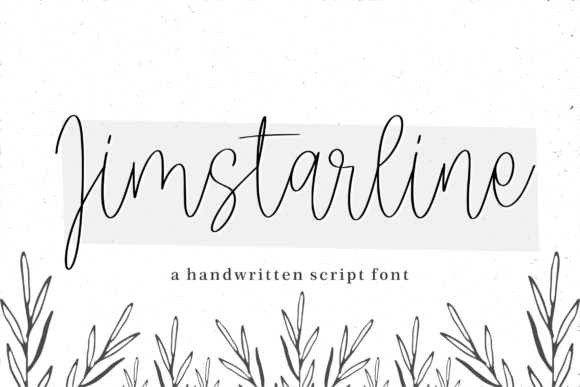
Say hello to Jimstarline Font, the elegant and sophisticated script font that will make your designs shine! With its delicate thin lines and charmingly cursive style, Jimstarline will add a touch of refinement to any project you create.
Step into a world of boundless creativity with Jimstarline! Its versatility makes it an ideal choice for a wide range of design projects, including book covers, invitations, social media graphics, and branding materials. Let your imagination soar as you craft designs that are both visually stunning and captivating.
Whether you're a seasoned designer or just starting your creative journey, Jimstarline is your perfect companion. Its user-friendly nature ensures a smooth and seamless experience, empowering you to create designs that will leave a lasting impression.
Indulge in the beauty of Jimstarline and witness the transformative power it brings to your designs. Its ability to effortlessly elevate your projects will make it your go-to font for any occasion.
Don't settle for ordinary fonts. Embrace the extraordinary with Jimstarline! Let its enchanting curves and graceful lines guide you towards design excellence. Experience the joy of creating designs that captivate and inspire, all with the help of Jimstarline.